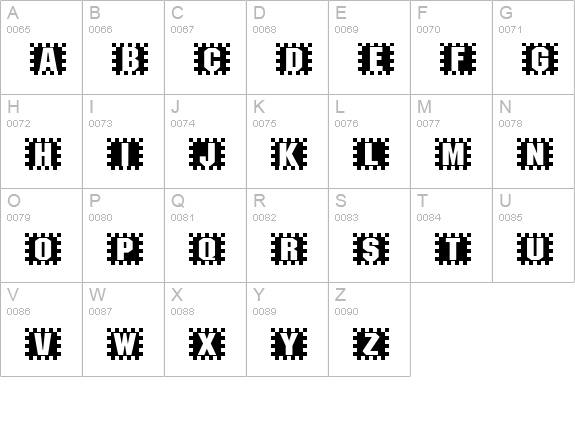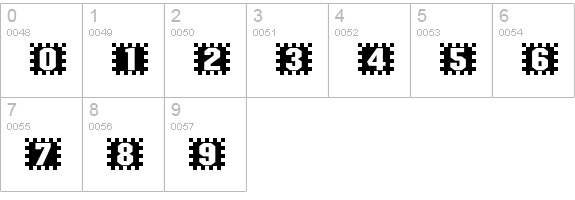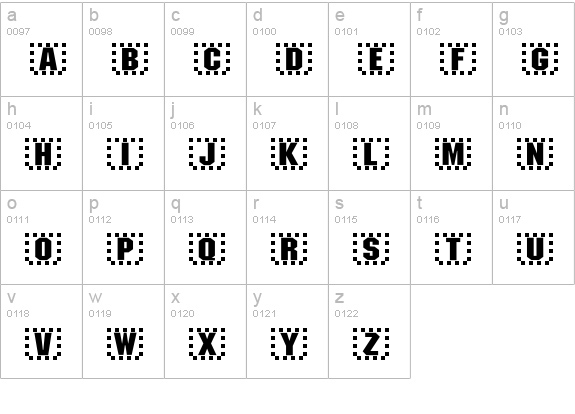
Checkers Font Details
Checkers font is a modern and versatile typeface that exudes a sense of playfulness and creativity. With its bold and eye-catching design, Checkers font is perfect for adding a touch of fun to any project. Whether you're creating posters, logos, or social media graphics, this font is sure to make a statement. The best part? Checkers font is completely free to download at FontsMarket.com. This means you can access this unique and stylish font without breaking the bank. So why wait? Add a pop of personality to your designs with the Checkers font today!